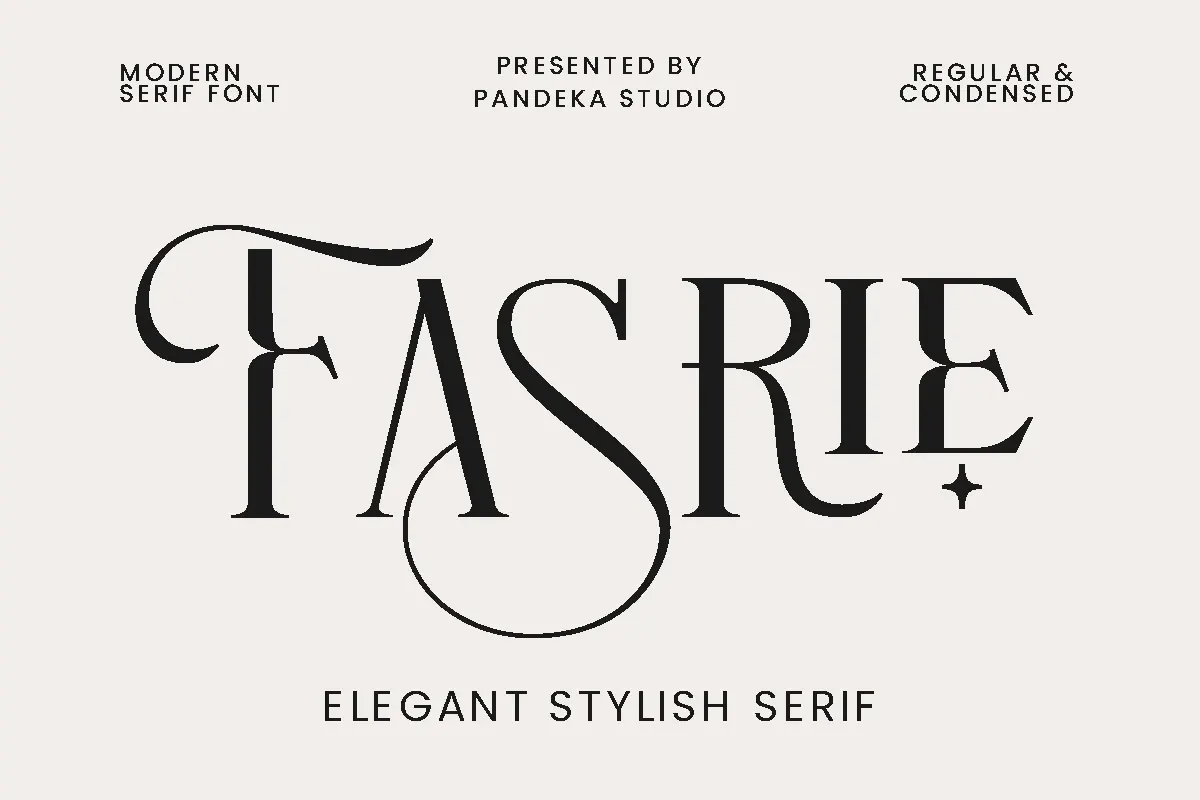
Fasrie - Ligature Serif Font Free Download
Fasrie - Ligature Serif Font Free Download is an elegant and modern typeface that features beautiful ligature connections, offering a sophisticated and unique look. Its refined serif design with intricate ligatures makes it perfect for high-end branding, editorial projects, wedding invitations, and premium product packaging. The clean lines and artistic details of Fasrie - Ligature Serif Font Free Download ensure that your designs stand out with both style and readability. Whether you're working on a luxury brand, a creative campaign, or a personal project, this font offers both versatility and class. Experiment with its stylish design in personal projects before purchasing a commercial license and elevate your designs with the timeless elegance of this ligature serif font.